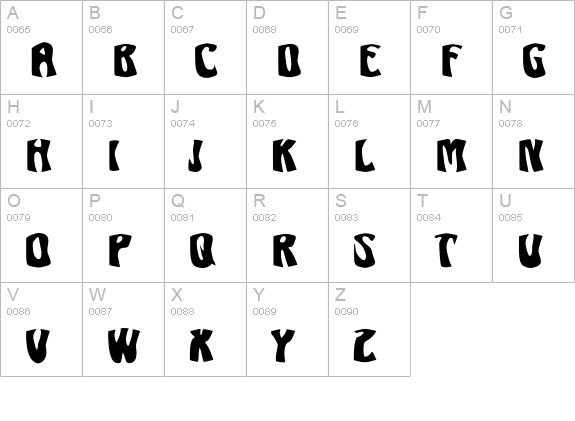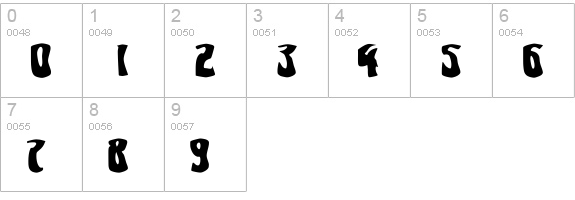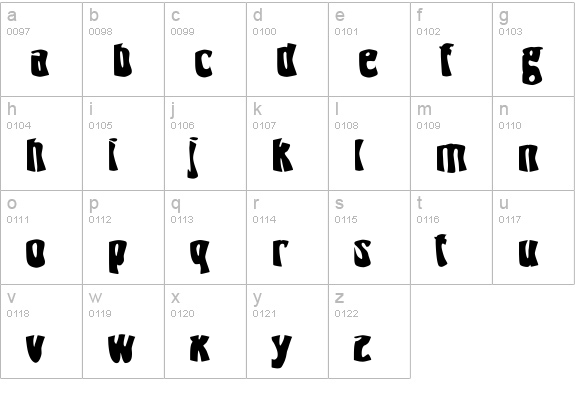
Freaky SF Font Details
Freaky SF font is a captivating and unique typeface that will make your designs stand out from the crowd. With its futuristic and edgy style, this font is perfect for projects that require a touch of the extraordinary. The sleek and modern look of Freaky SF font will add a dynamic flair to any design, whether it's for posters, logos, websites, or social media graphics. And the best part? Freaky SF font is available for free download at FontsMarket.com! You can easily access this amazing font and enhance your projects with its eye-catching appeal. Don't miss out on the opportunity to elevate your designs with the bold and striking Freaky SF font. Download it today and let your creativity shine!